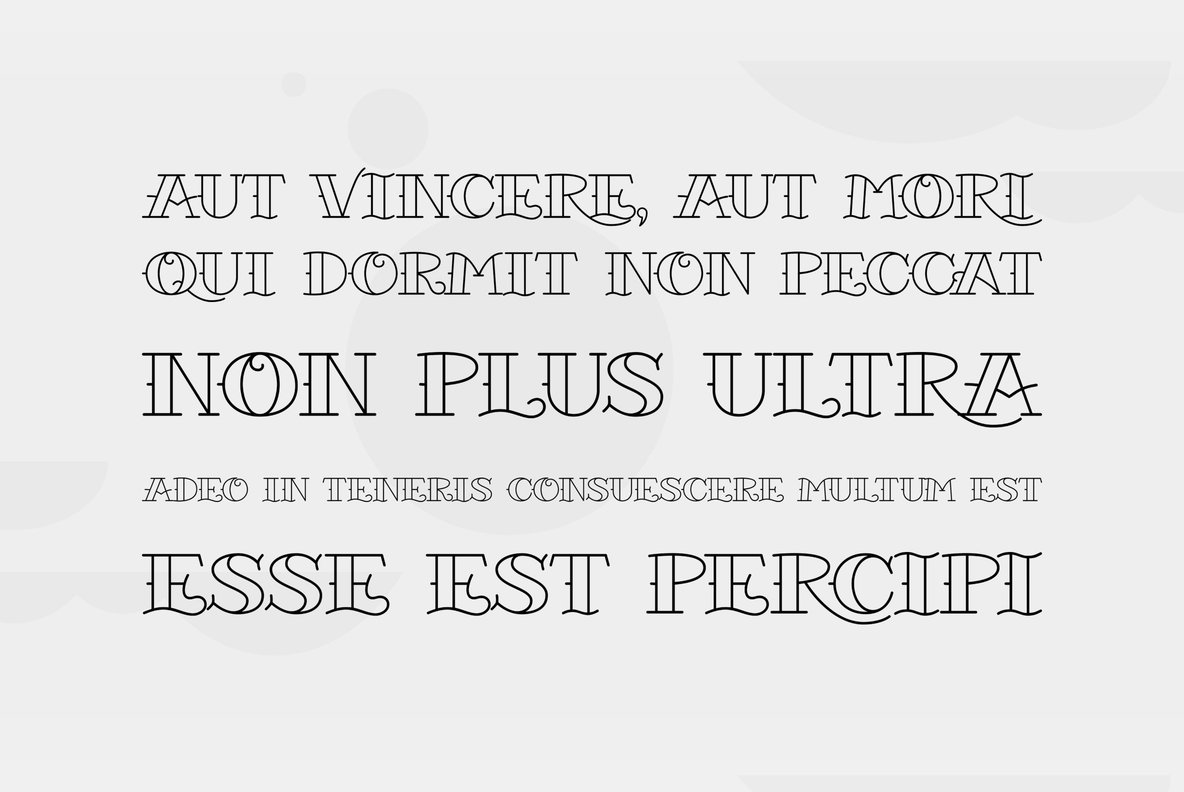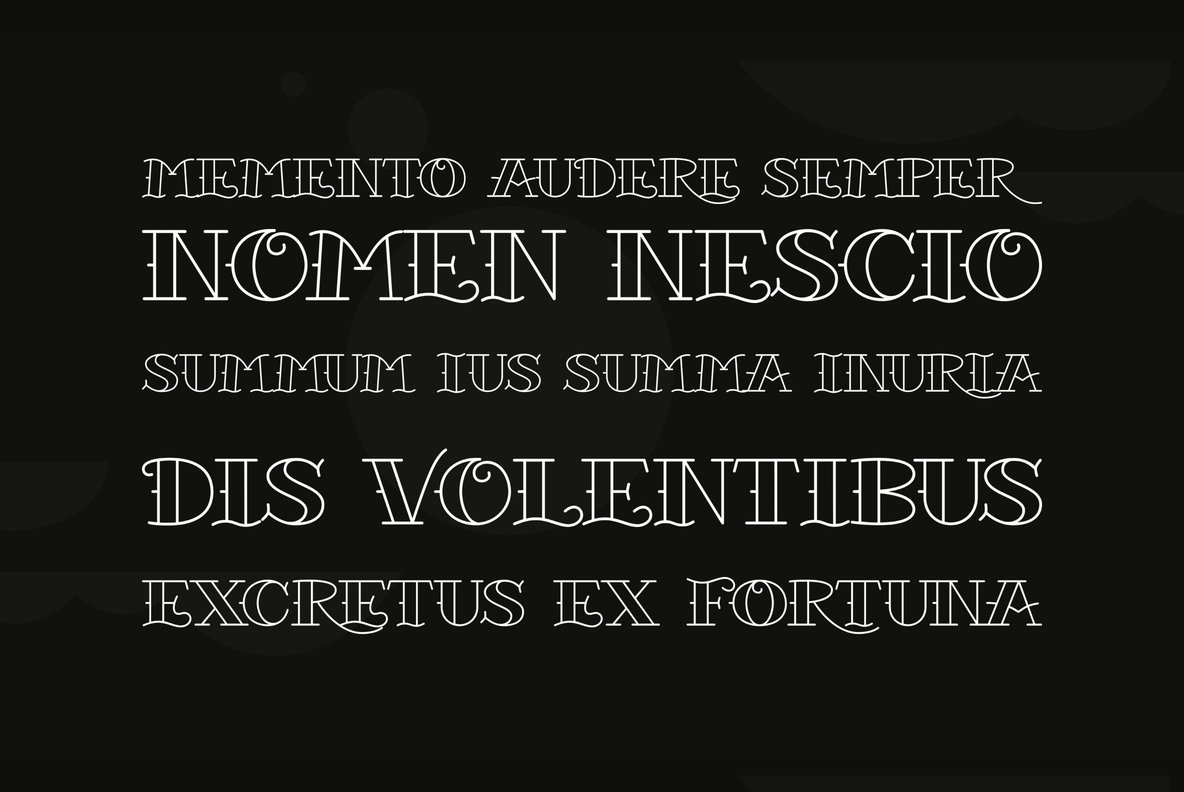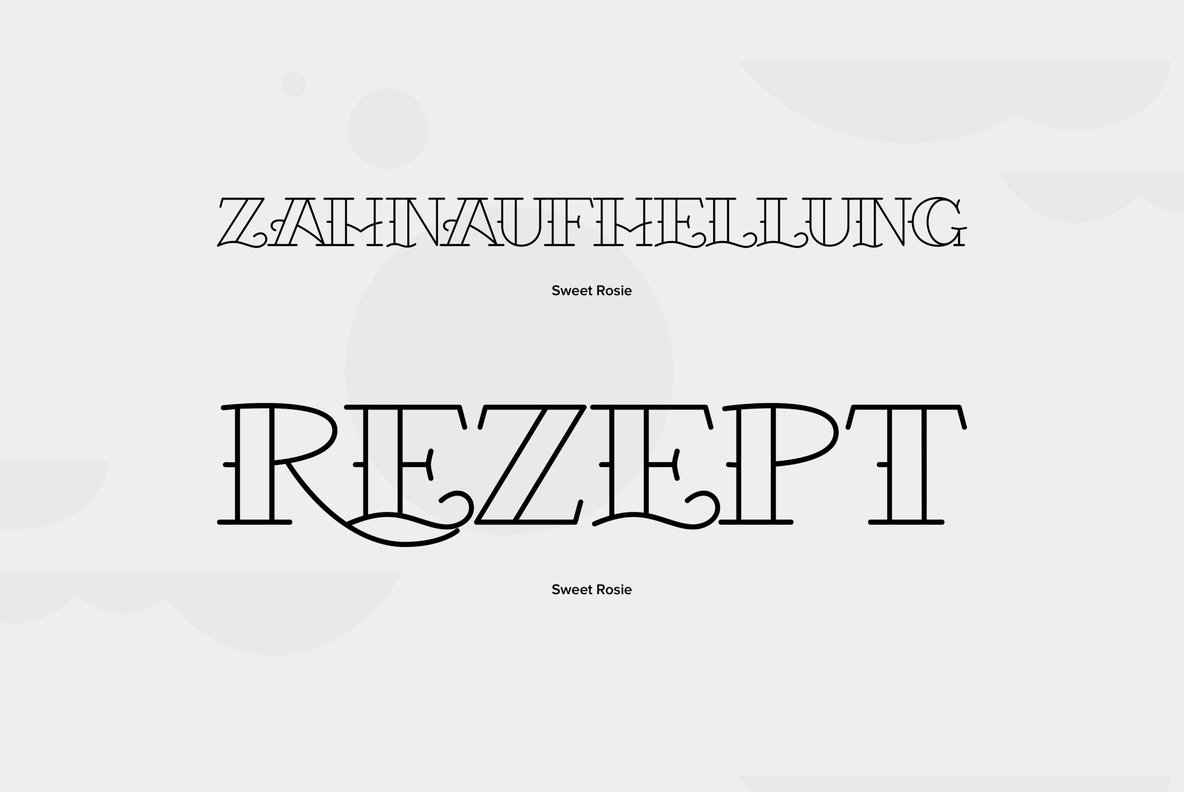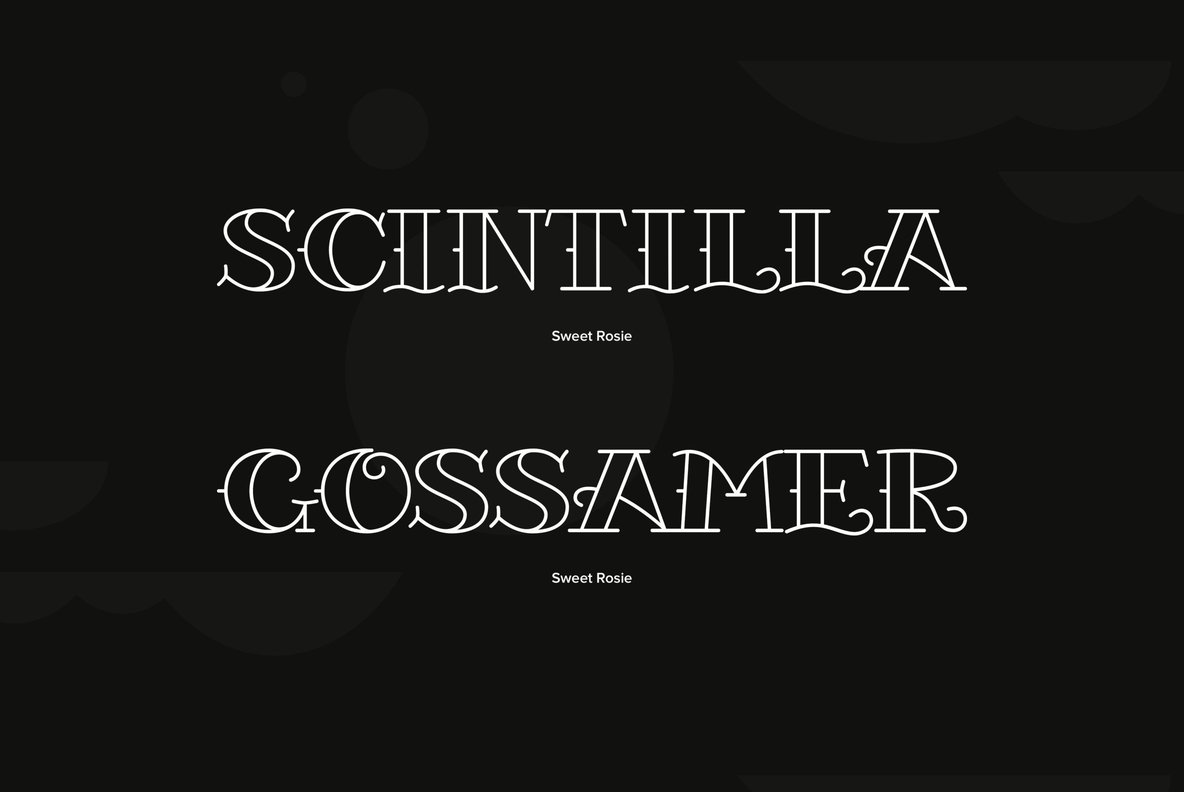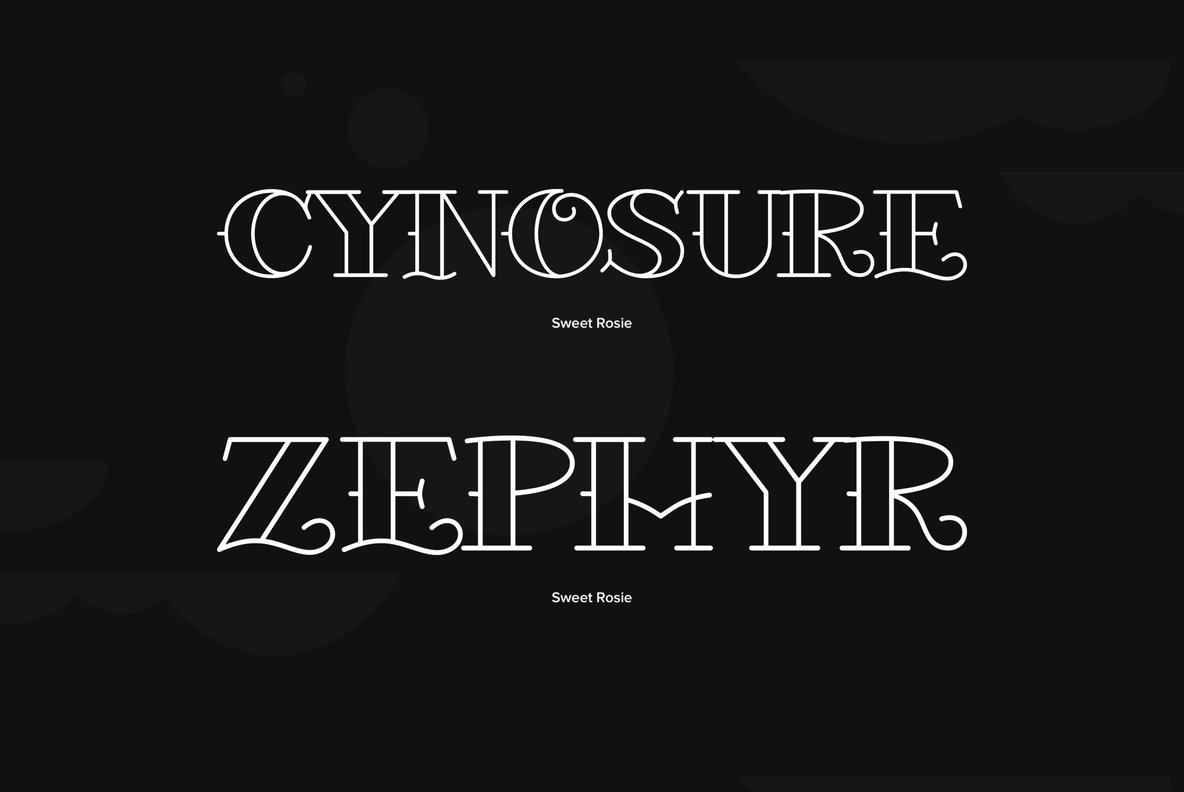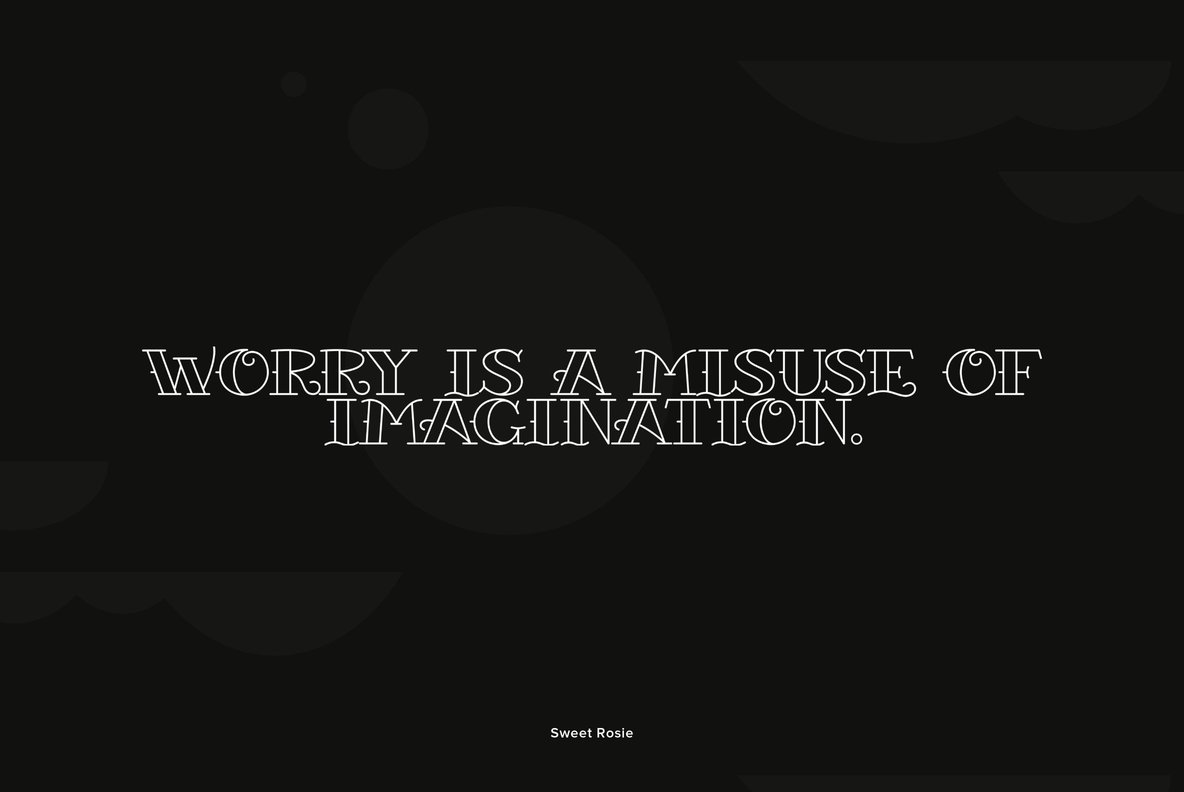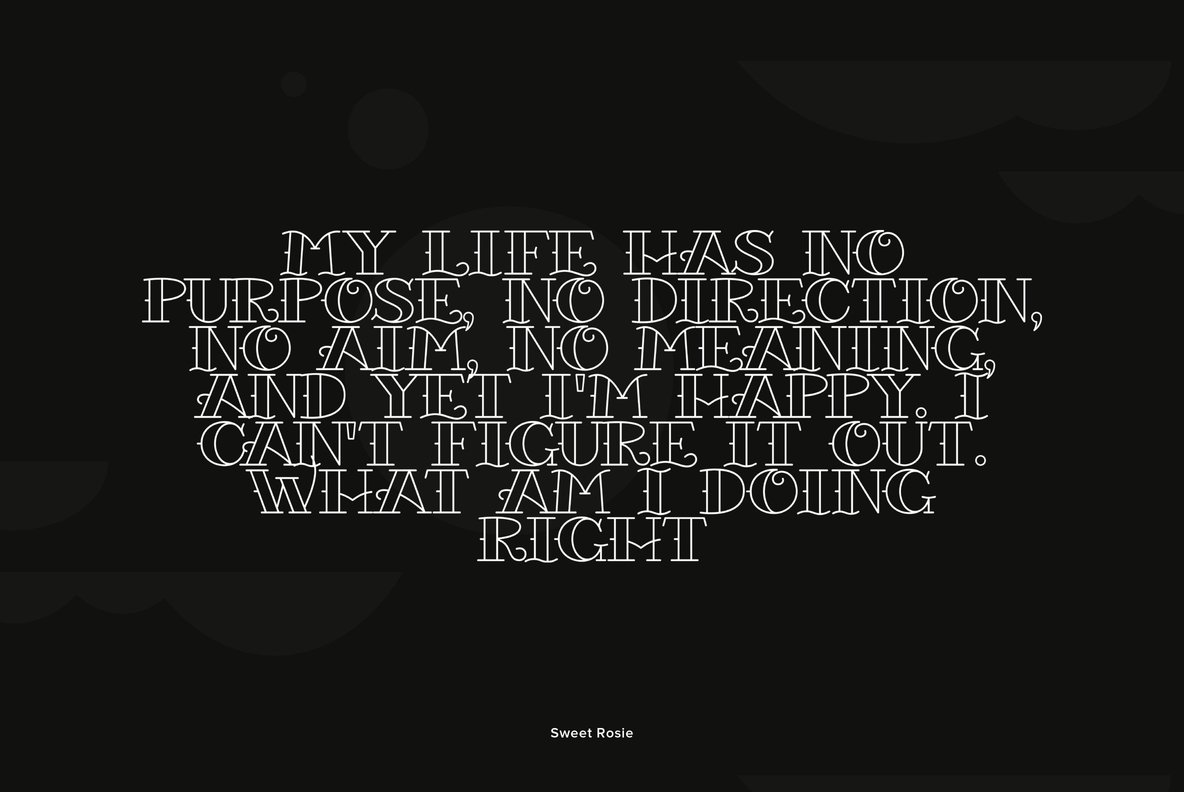
Sweet Rosie
Foundry: Font Diner
Unlike her naughty sister Queen Rosie, Sweet Rosie always comes home before her curfew but has a secret wild side and a tiny tattoo!